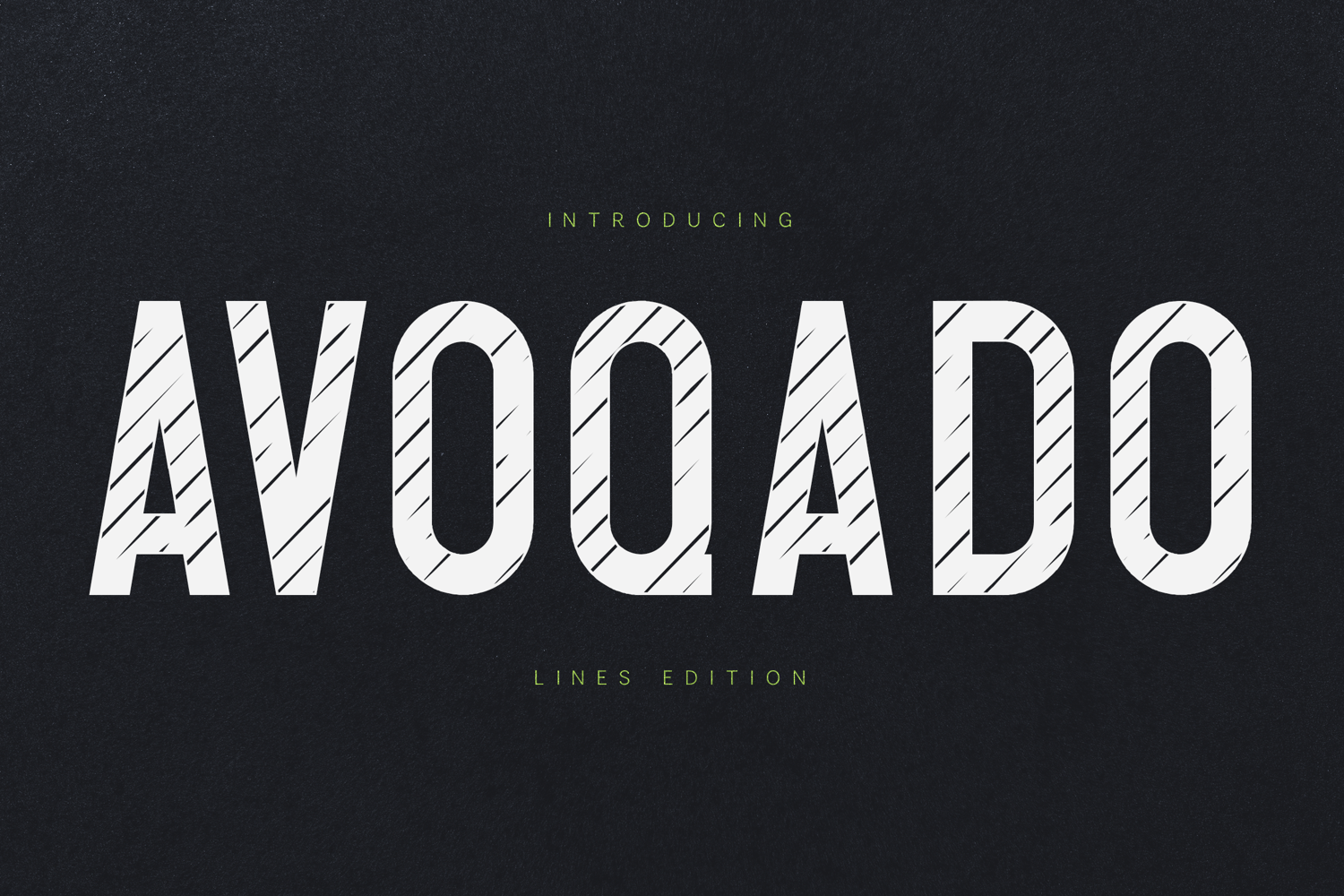
Avoqado Striped Sports Display Font
Avoqado is a bold striped display font featuring distinctive engraved line details, athletic letterforms, and a powerful sports-inspired aesthetic. Designed to command attention, this modern headline font is perfect for sports branding, team logos, jersey designs, merchandise, apparel, posters, packaging, advertising, social media graphics, and bold typography projects.
The unique striped texture creates depth and movement while maintaining excellent readability. Inspired by vintage sports graphics, college lettering, athletic branding, and industrial design, Avoqado helps designers create memorable visuals that stand out across both print and digital media.
Whether you're designing sportswear, fitness branding, esports graphics, event posters, product packaging, YouTube thumbnails, promotional materials, or modern logo designs, Avoqado delivers strong visual impact with a clean and professional look.
Avoqado combines the strength of a sports font with the character of a striped display typeface. Its bold condensed forms and engraved line texture make it ideal for projects that require energy, confidence, and maximum visibility.